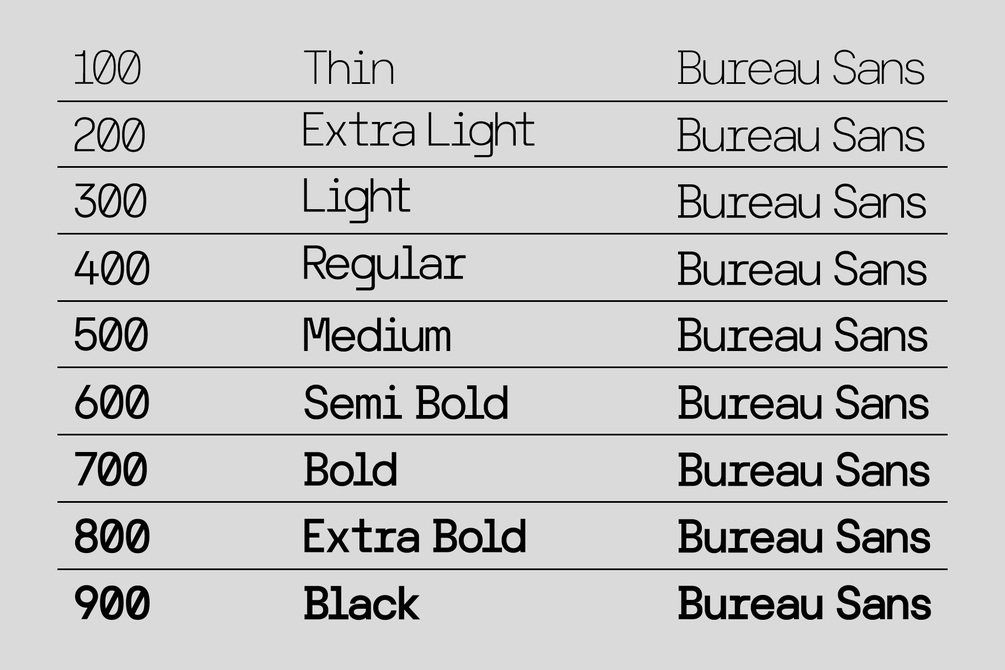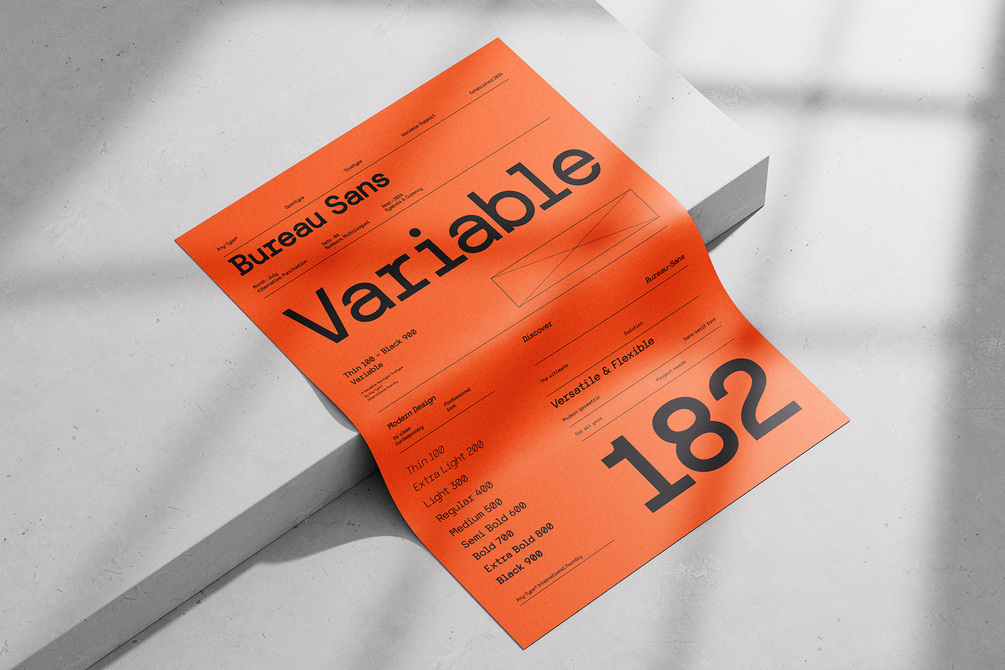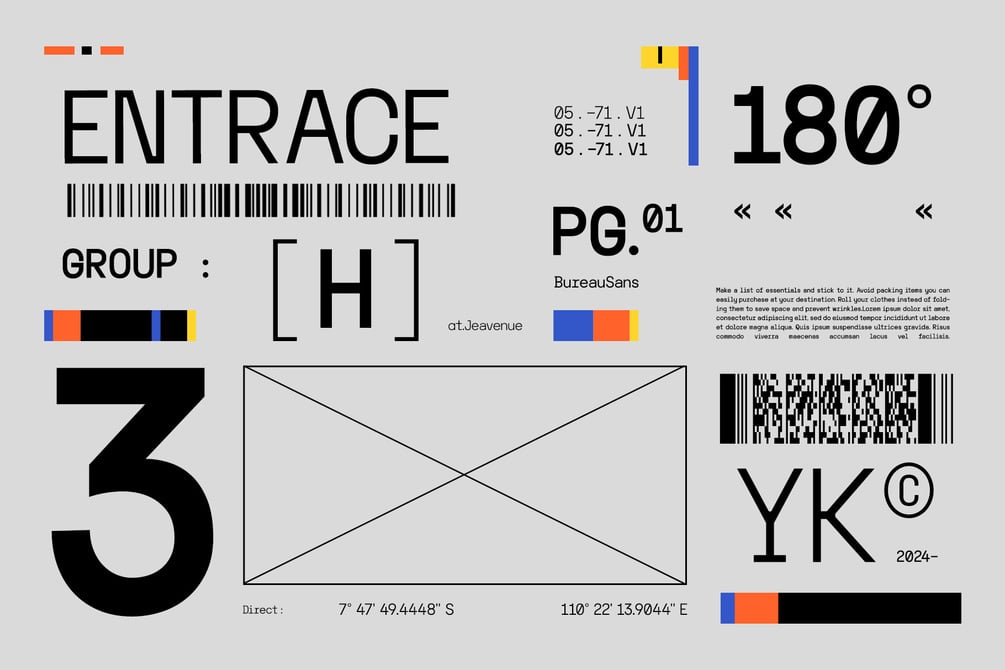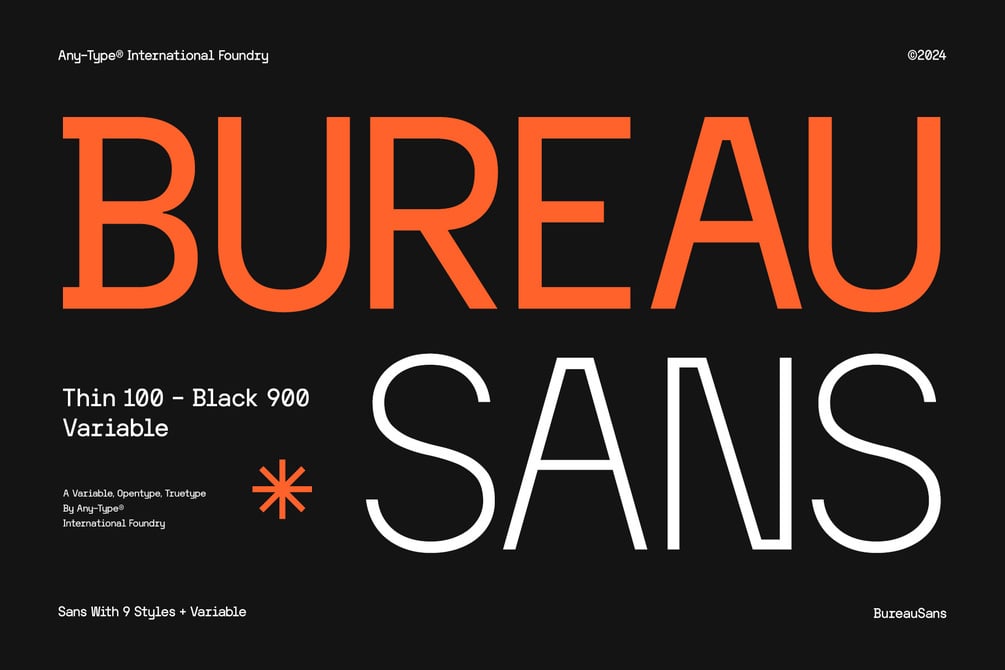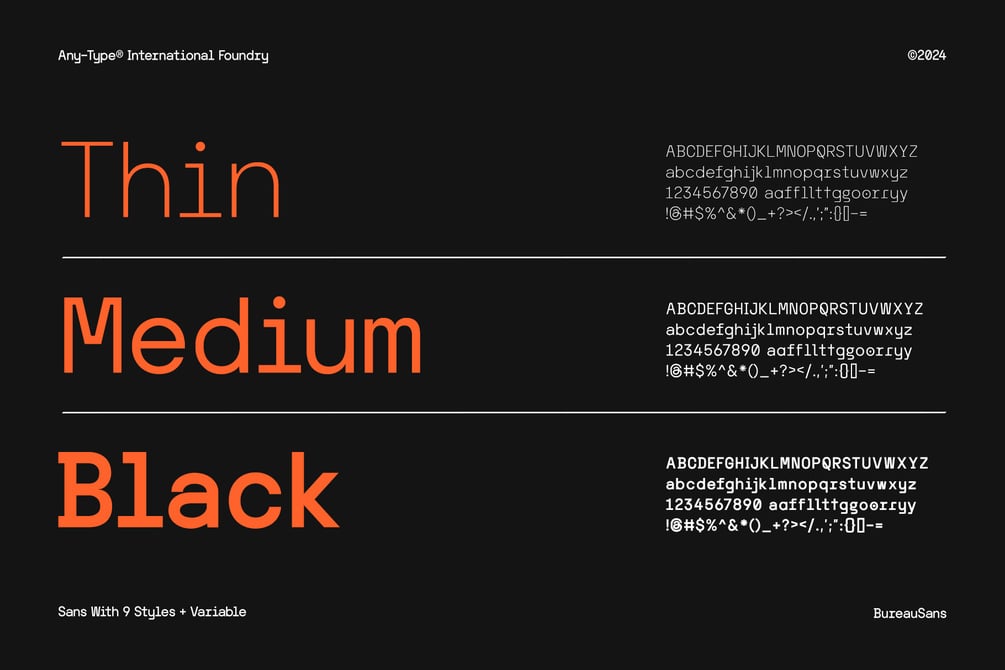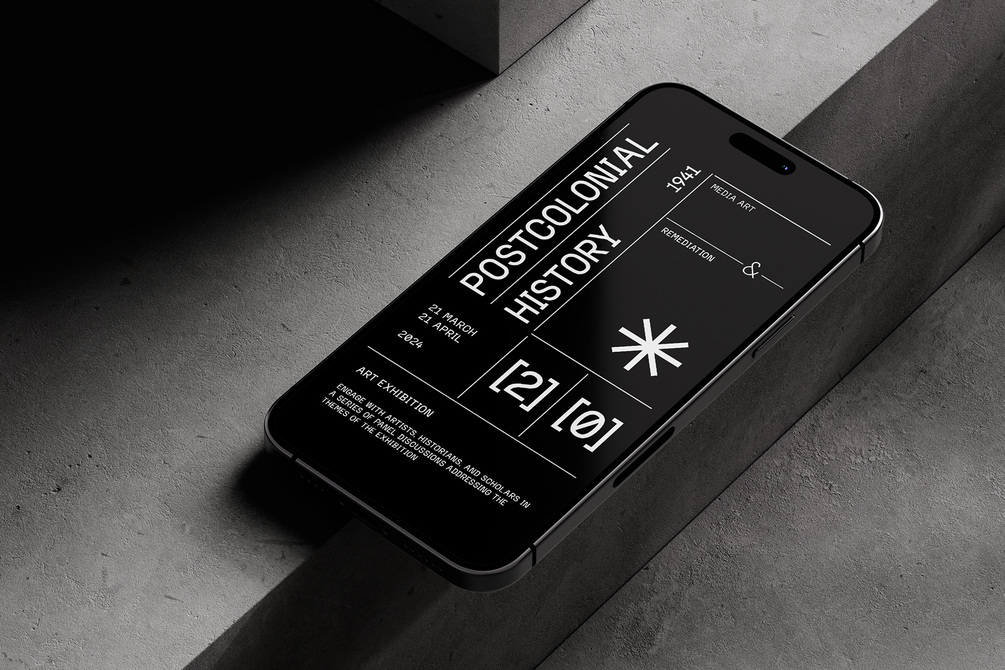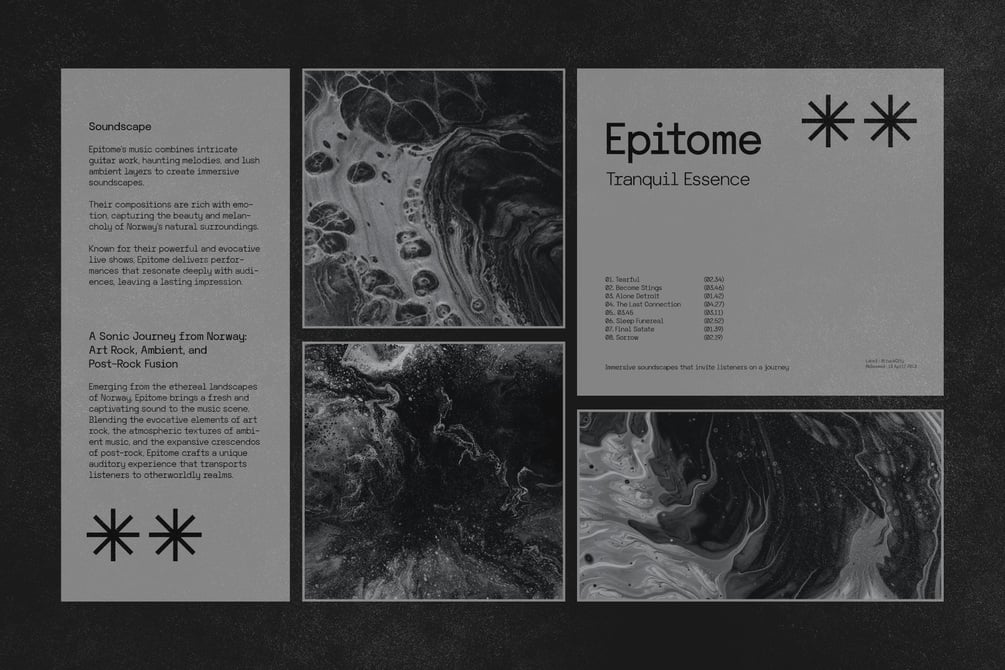
AT Bureau Sans
AT Bureau is new modern geometrics sans with 9 styles & 1 variable font. It was inspired by geometrics and gothic typefaces like Bell Centinel, Whitney, and Metric with a touch of monospace characters. That makes AT Bureau have a unique character set, some alternates and fit perfectly for body text and any modern or bold design.